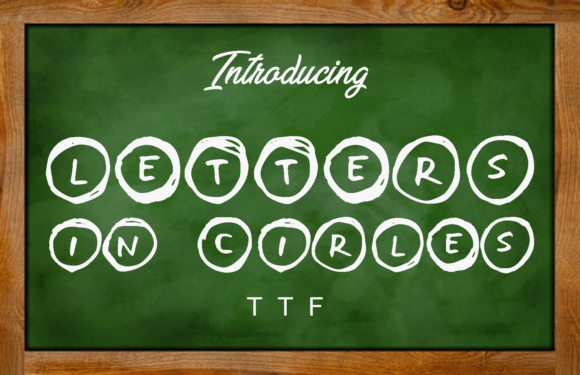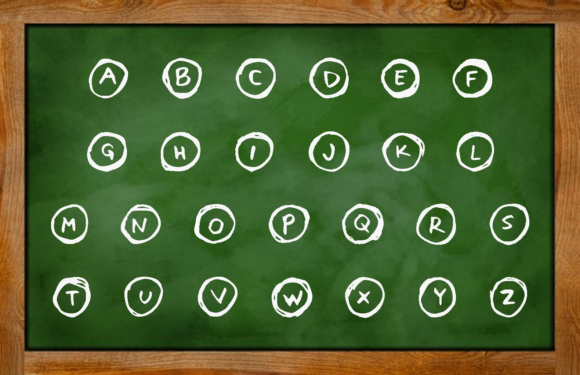
Letters in Circles Font
About Letters in Circles Font
Letters in Circles is an awesome decorative font that can be used for various purposes such as t-shirts, banners, flyers, and more.